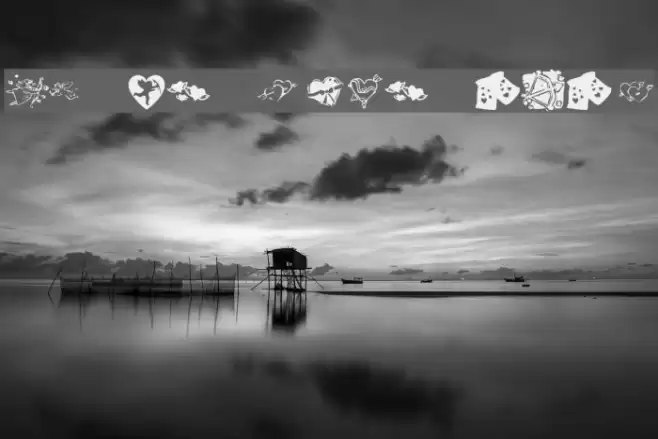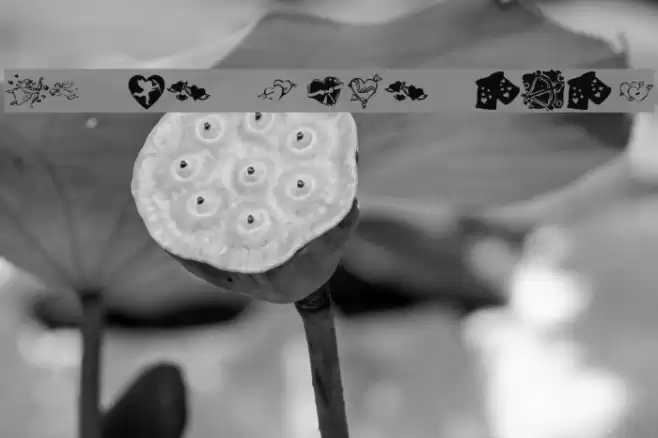
KR Be Mine Always Font
KR Be Mine Always Description
This collection features a series of romantic and whimsical illustrations, including hearts, arrows, birds, and cherubs. Each character is intricately designed, showcasing a playful and affectionate theme. The elements are bold and decorative, with a hand-drawn quality that adds a personal touch. The designs are perfect for conveying love and romance, making them ideal for Valentine's Day projects or wedding invitations. The characters are not traditional alphanumeric symbols but rather a series of themed icons that can be used creatively in various design contexts.
A decorative set of romantic and whimsical illustrations featuring hearts, arrows, and cherubs from Uncategorized fonts.
- Proposed Projects: Ideal for Valentine's Day cards, wedding invitations, romantic event decorations, and love-themed crafts.
- Use Case: Logos, Decorative elements